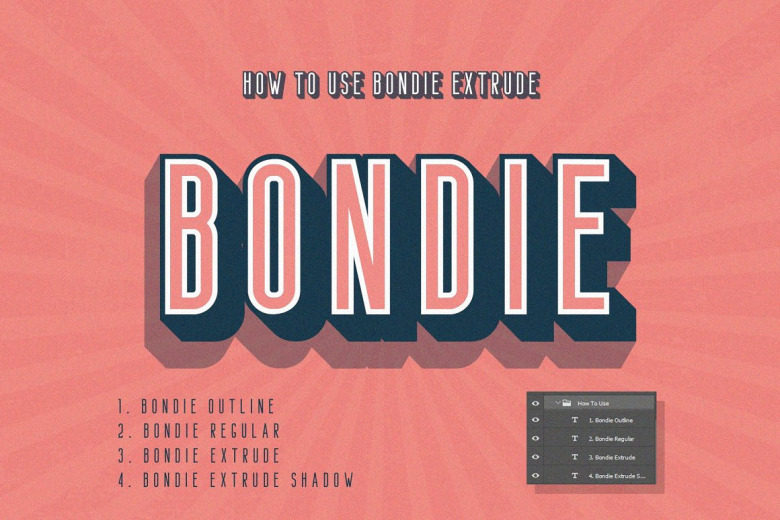
Bondie Font
Bondie Extrude Font Family is a Sans Serif style display font in 4 layers, Bondie Extrude Font Family was the result of an exploration of Retro American and European bold Sans Serif lettering for advertising. is an attractive contemporary typeface drawn from scratch with brand-new, more vigorous detailing — and layerable variations for chromatic use.
Bondie Font Family